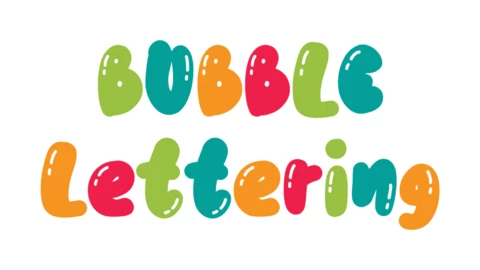
Bubble Lettering
Create a text effect "3d Font Effect" bubble lettering with our online custom font generator.
Enhance your text with our innovative font style text effect generator. Create captivating lettering with our versatile font generator, offering a wide range of options including vibrant multicolor bubbles. Elevate your design with eye-catching bubble text effects that will leave a lasting impression.